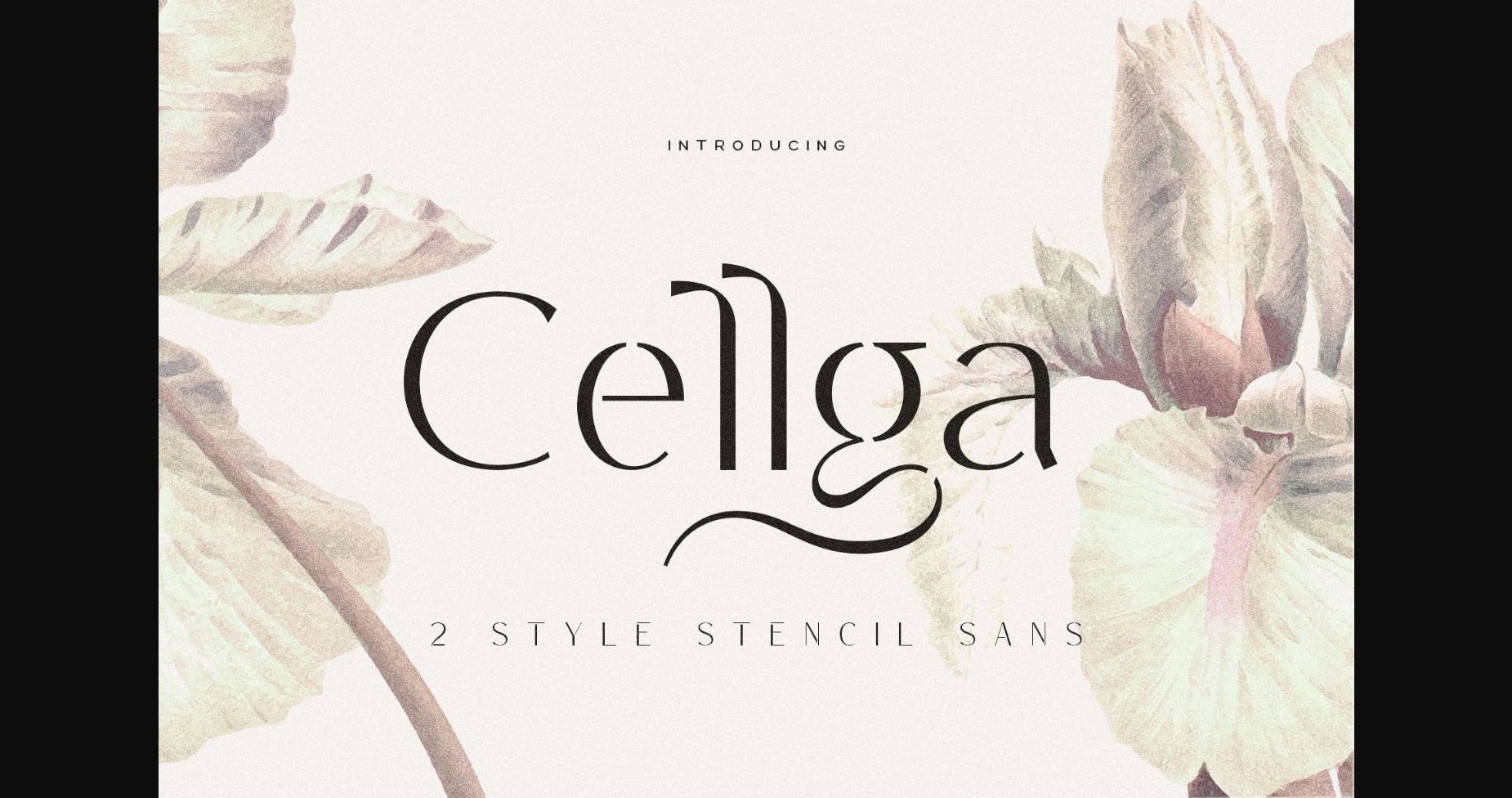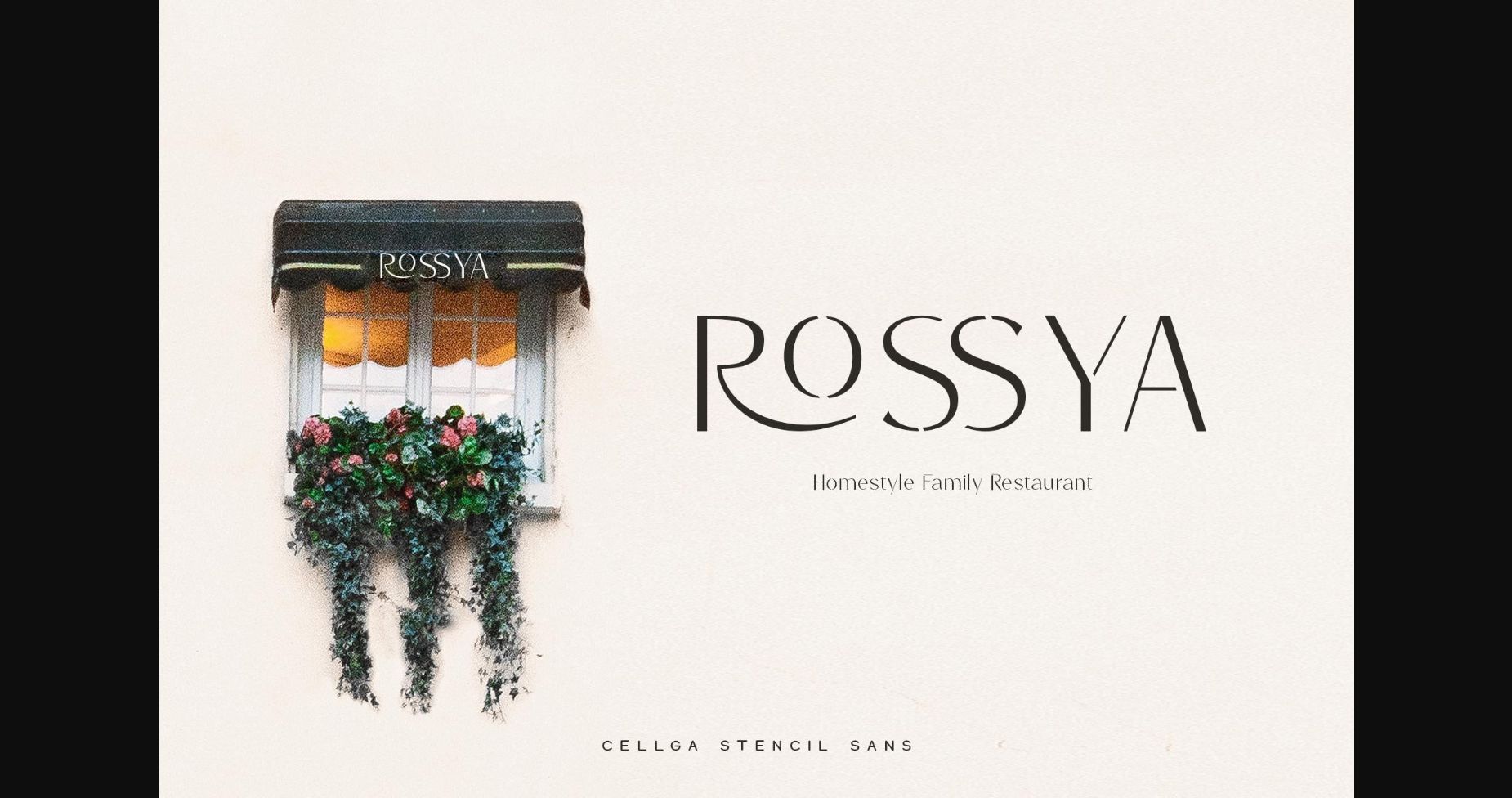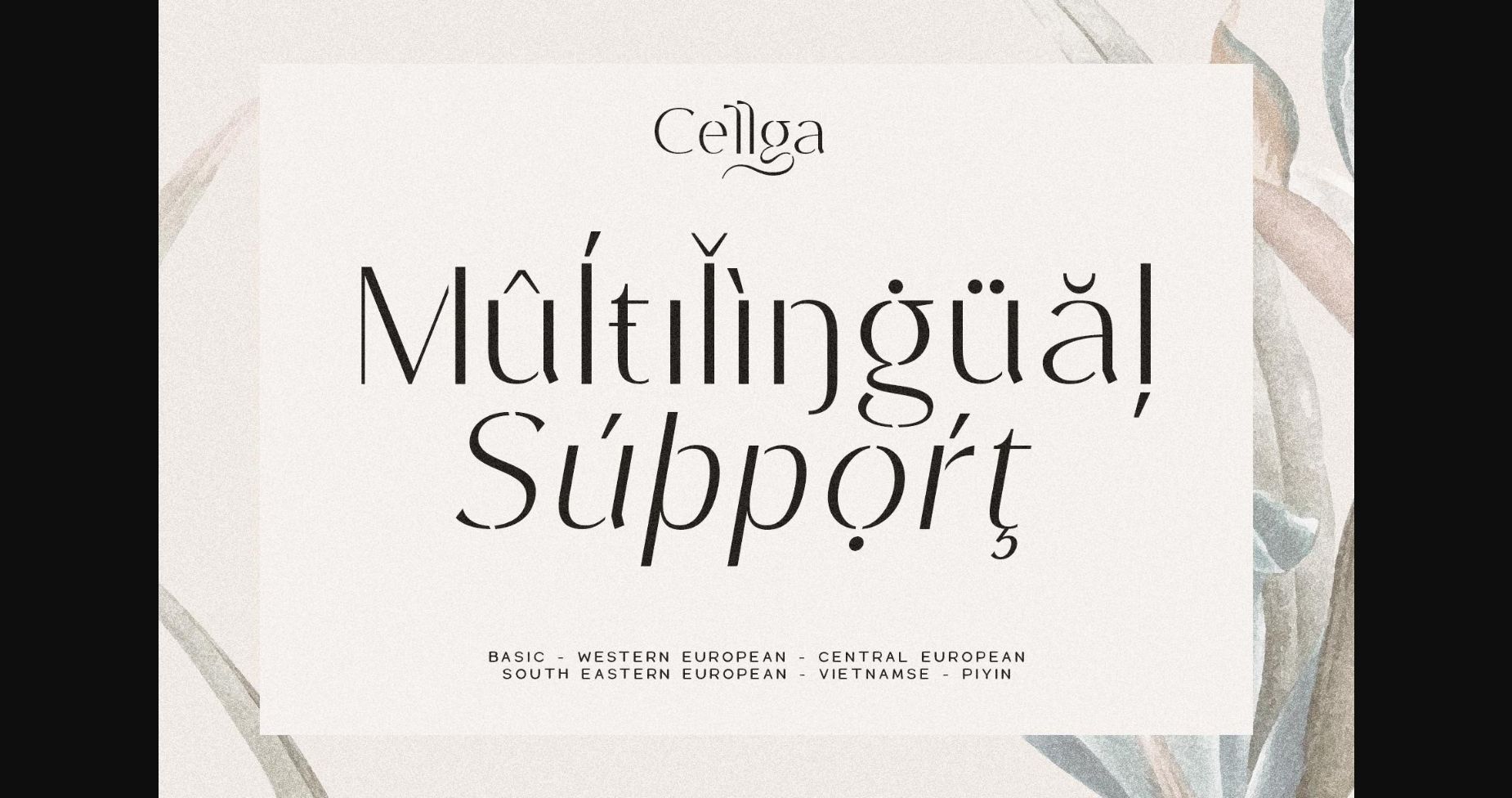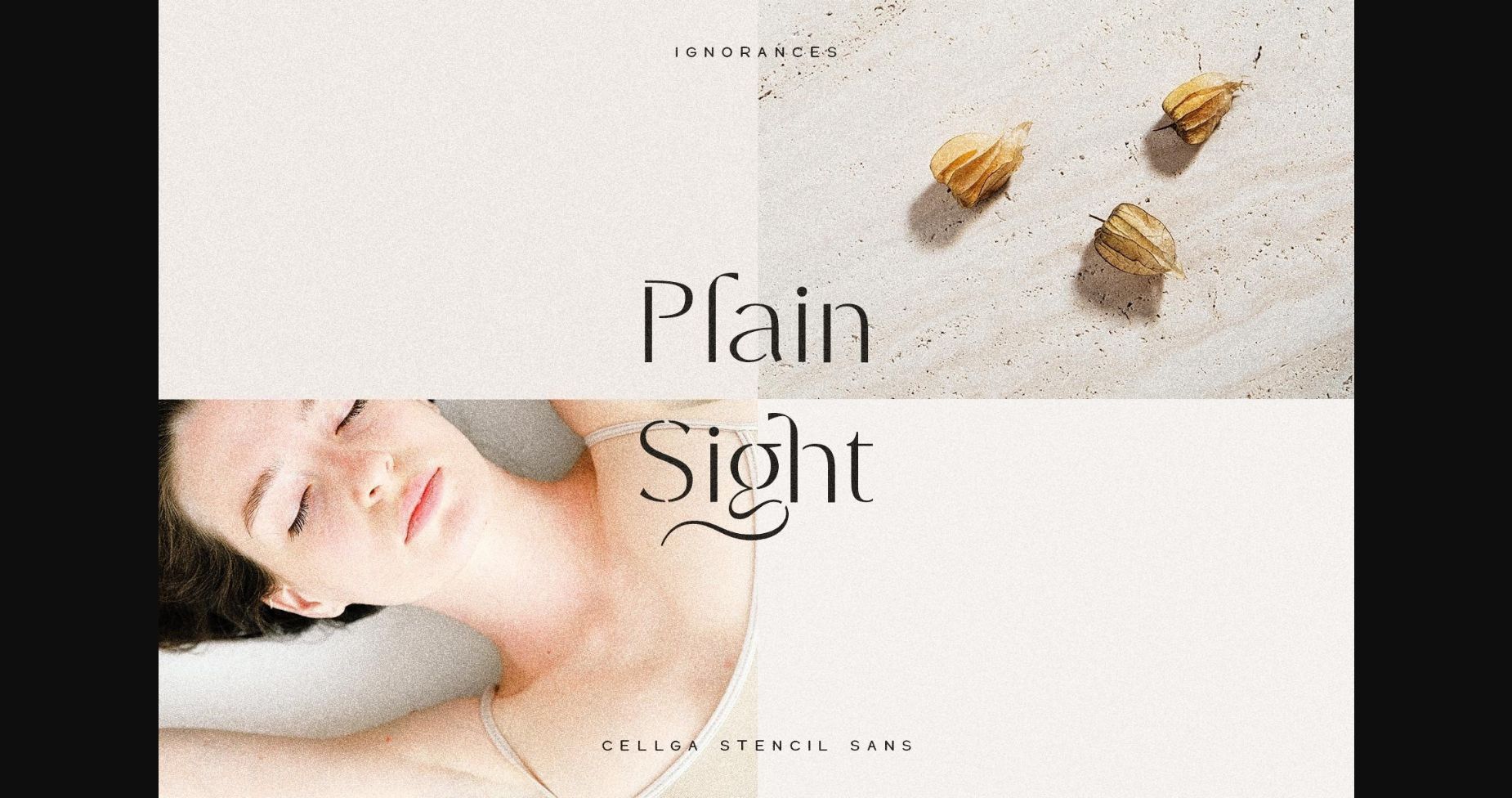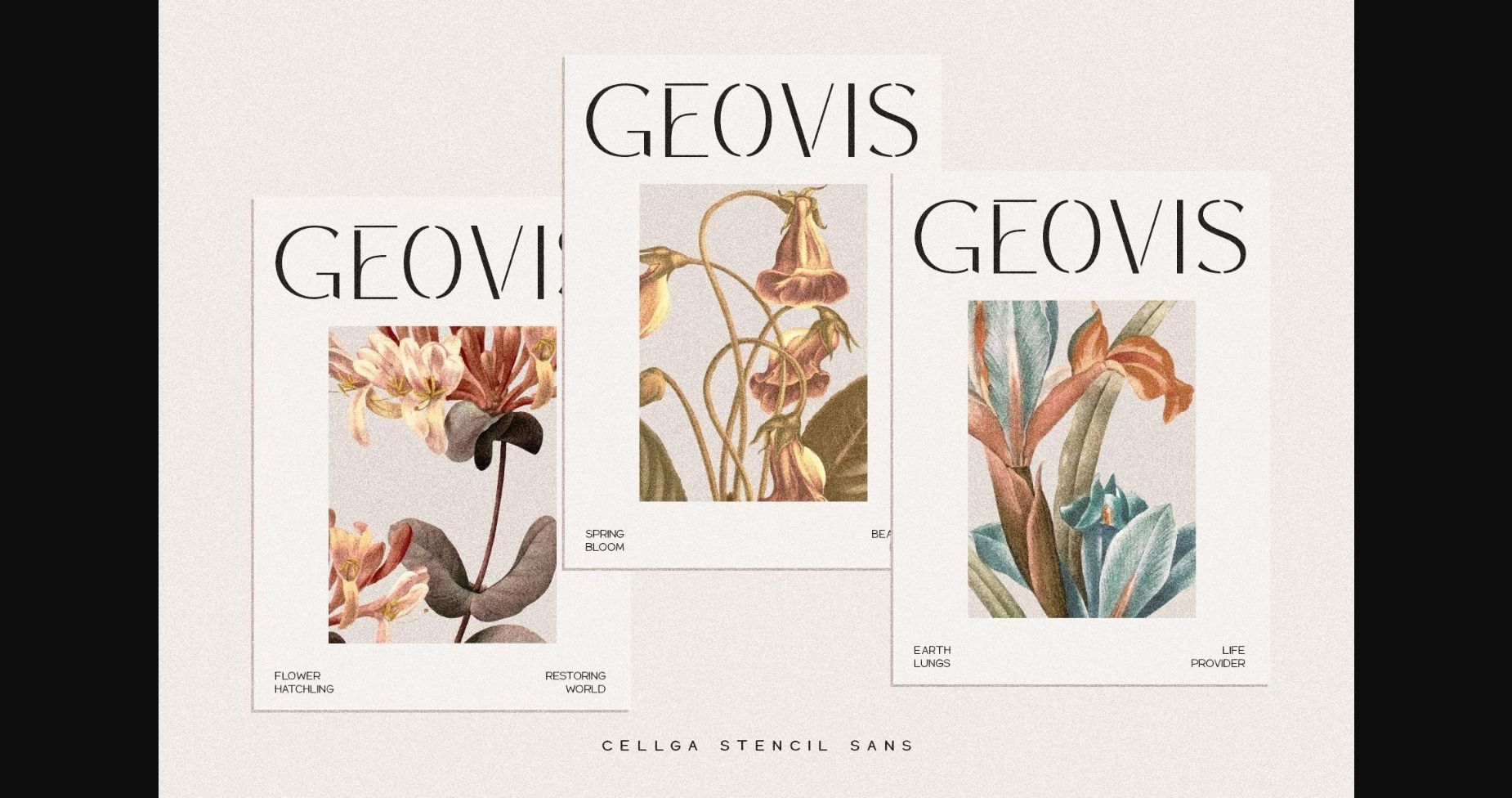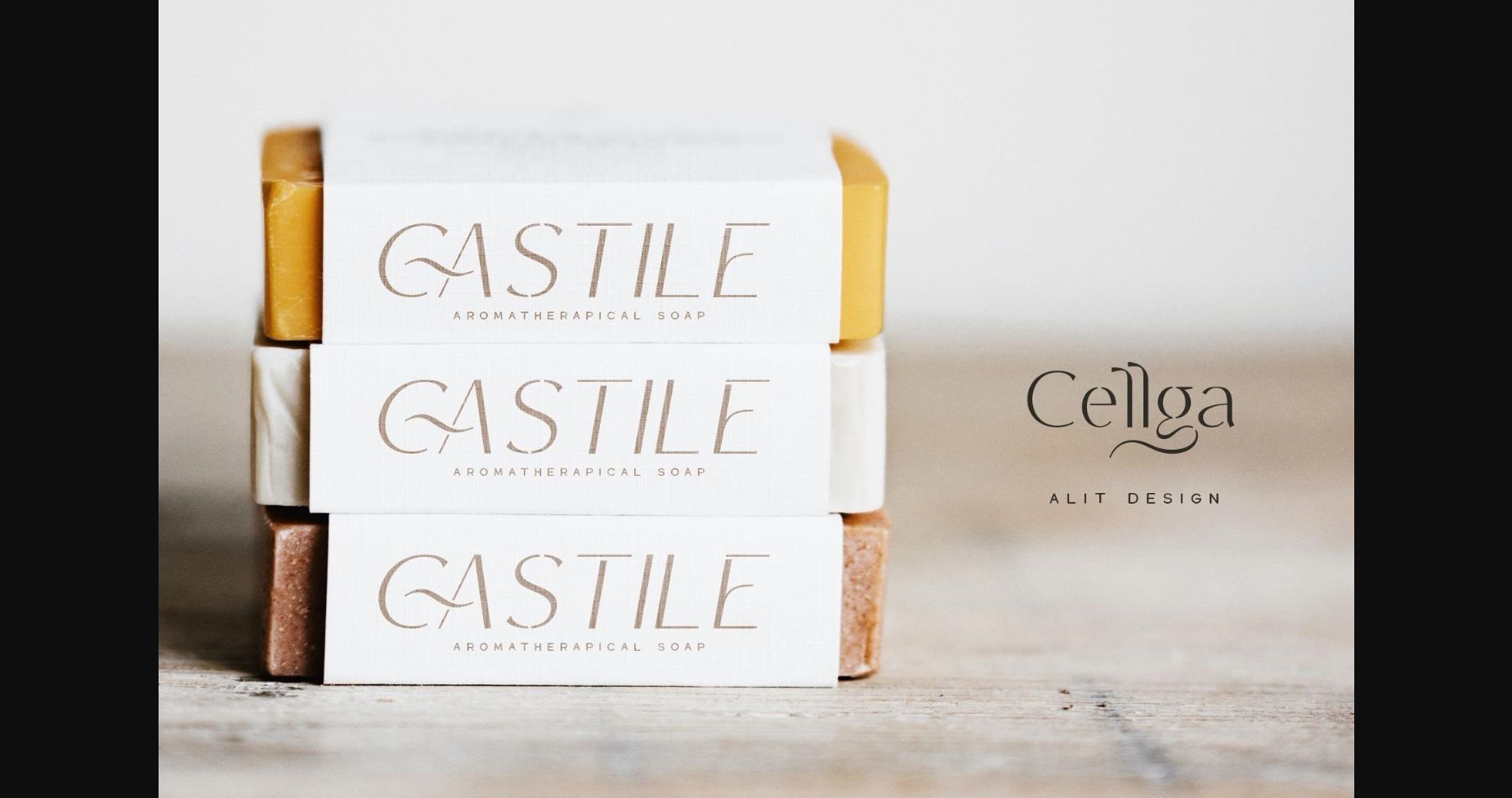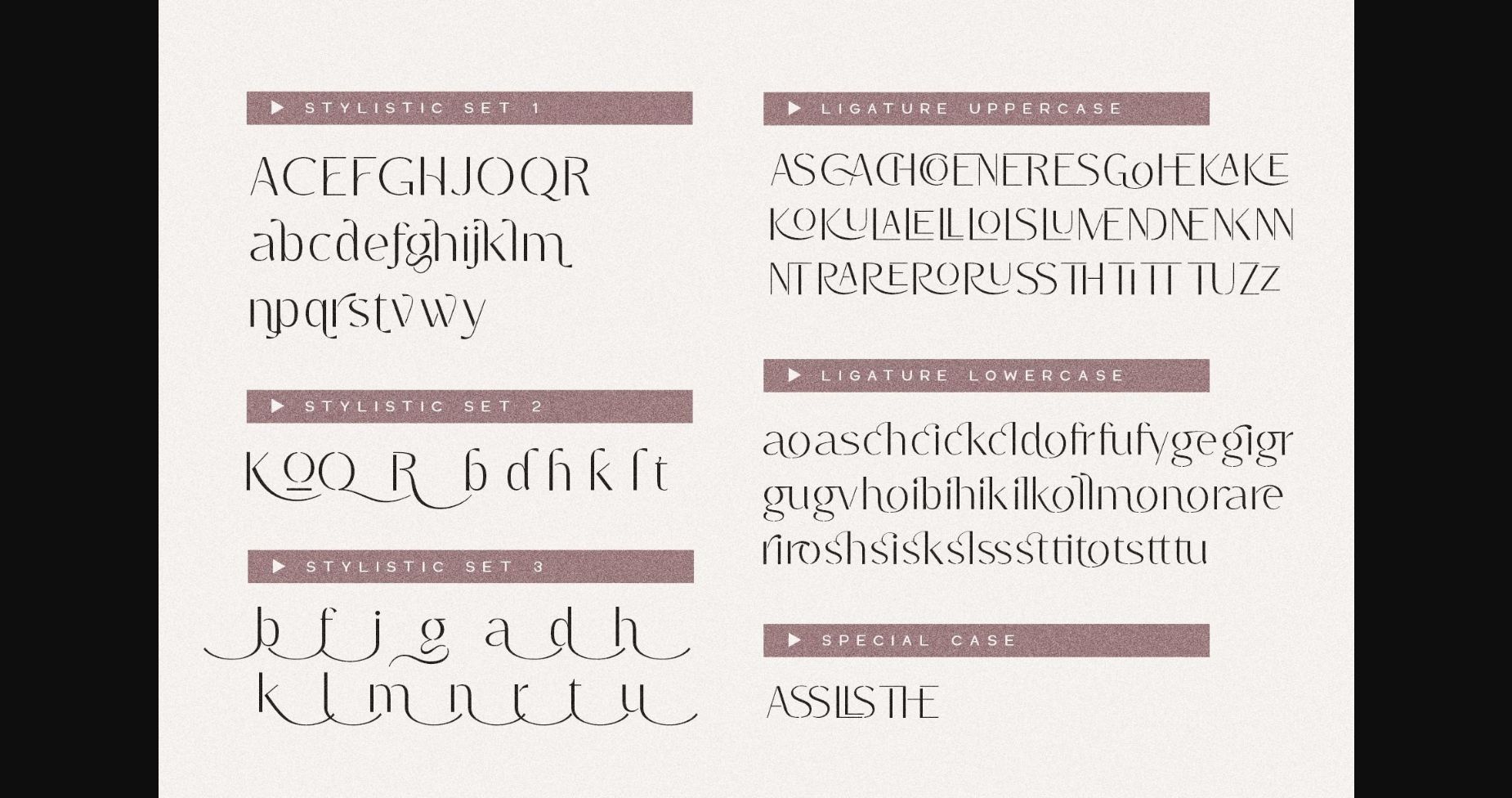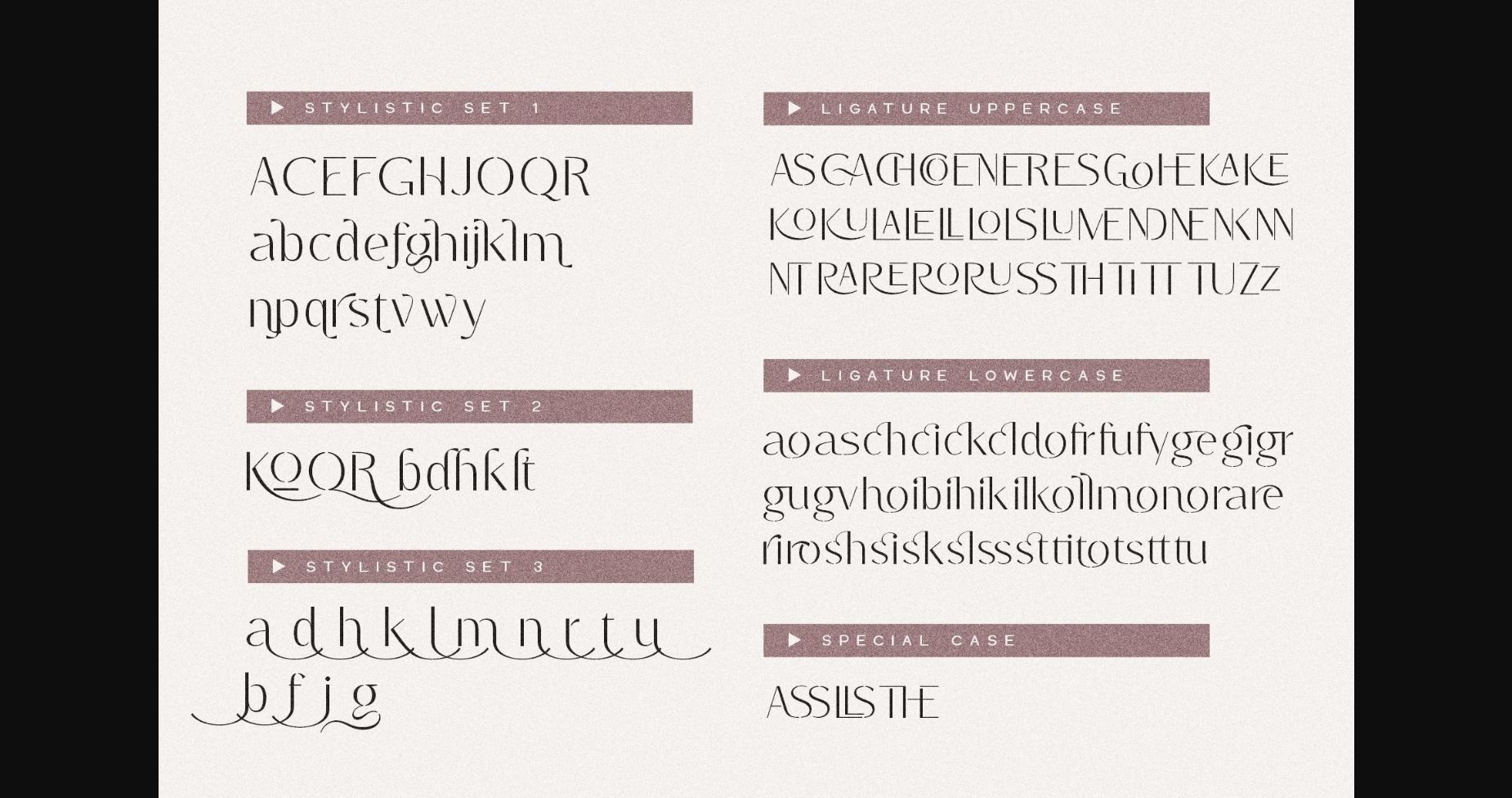
Cellga Font
About Cellga Font
Usually, stencil fonts are synonymous with military, retro, and bold characters, but Cellga comes with an elegant and attractive stencil style for a modern design, combined with a subtle swash. In addition to swash in the Cellga font, there are also many alternative character shapes and unique Discretionary ligatures. So the Cellga font is very worthy of being a font collection on your computer, for projects with a unique and charming concept.
Sans Serif typefaces such as “Cellga” are very easy to apply to any design, especially those with an elegant, modern, and classic theme.